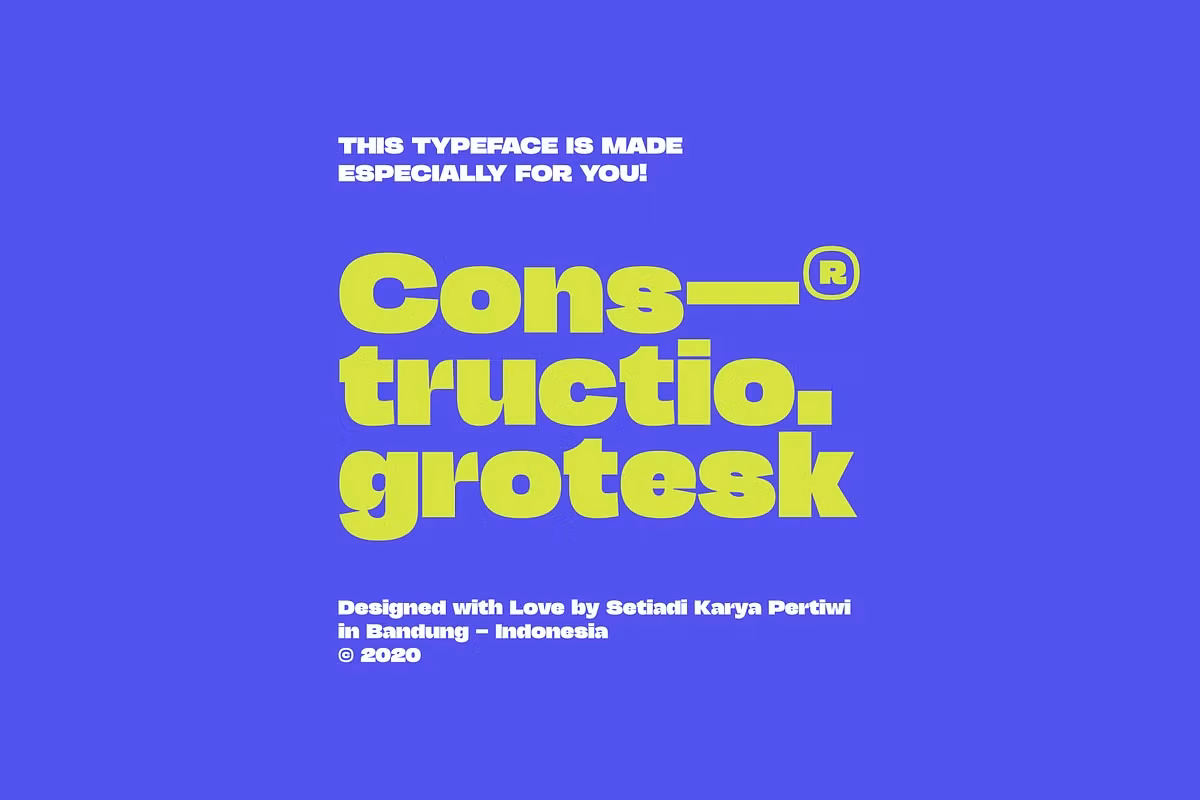
Constructio Grotesk Font Free Download is a modern and versatile sans-serif typeface designed for clean and impactful designs. Featuring geometric shapes and sharp lines, this font is perfect for creating sleek logos, branding materials, websites, posters, and more. Its balanced and minimalist style ensures readability while offering a contemporary edge to your projects. Whether you're designing for a tech brand, a creative campaign, or a professional portfolio, Constructio Grotesk Font Free Download lets you experiment with its modern design in personal projects before purchasing a commercial license. Add clarity, sophistication, and style to your designs with this beautifully crafted grotesque font.